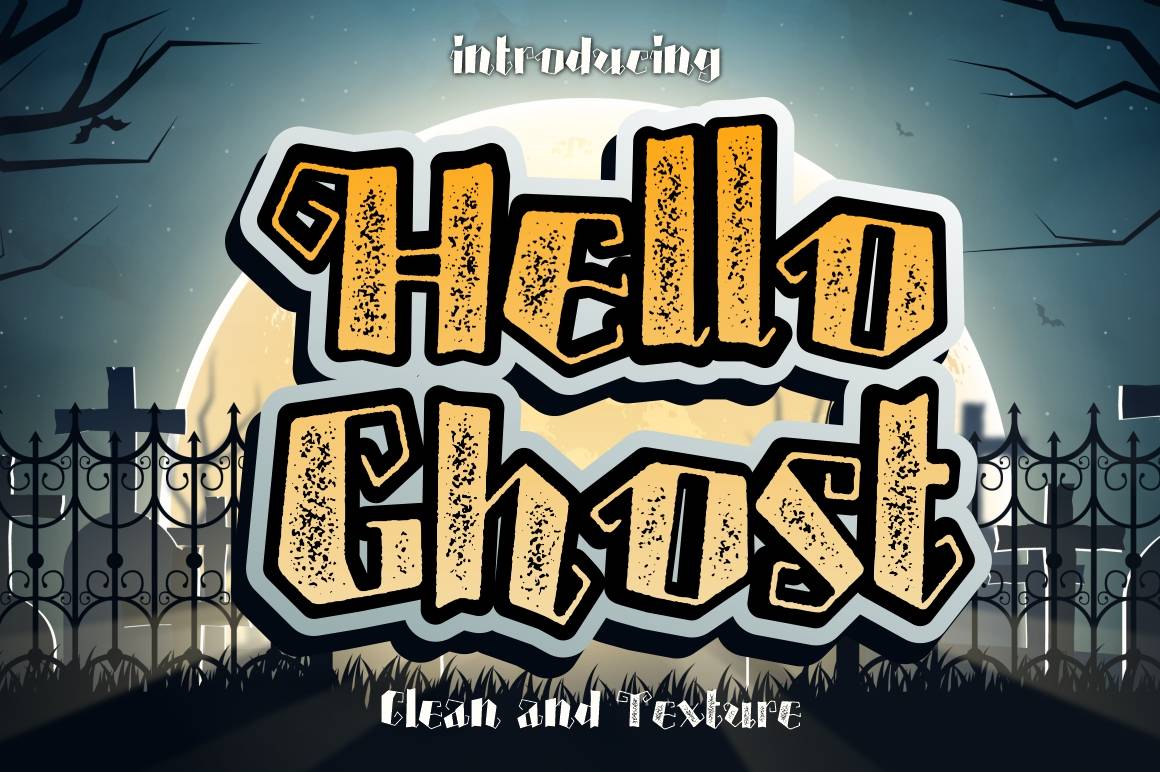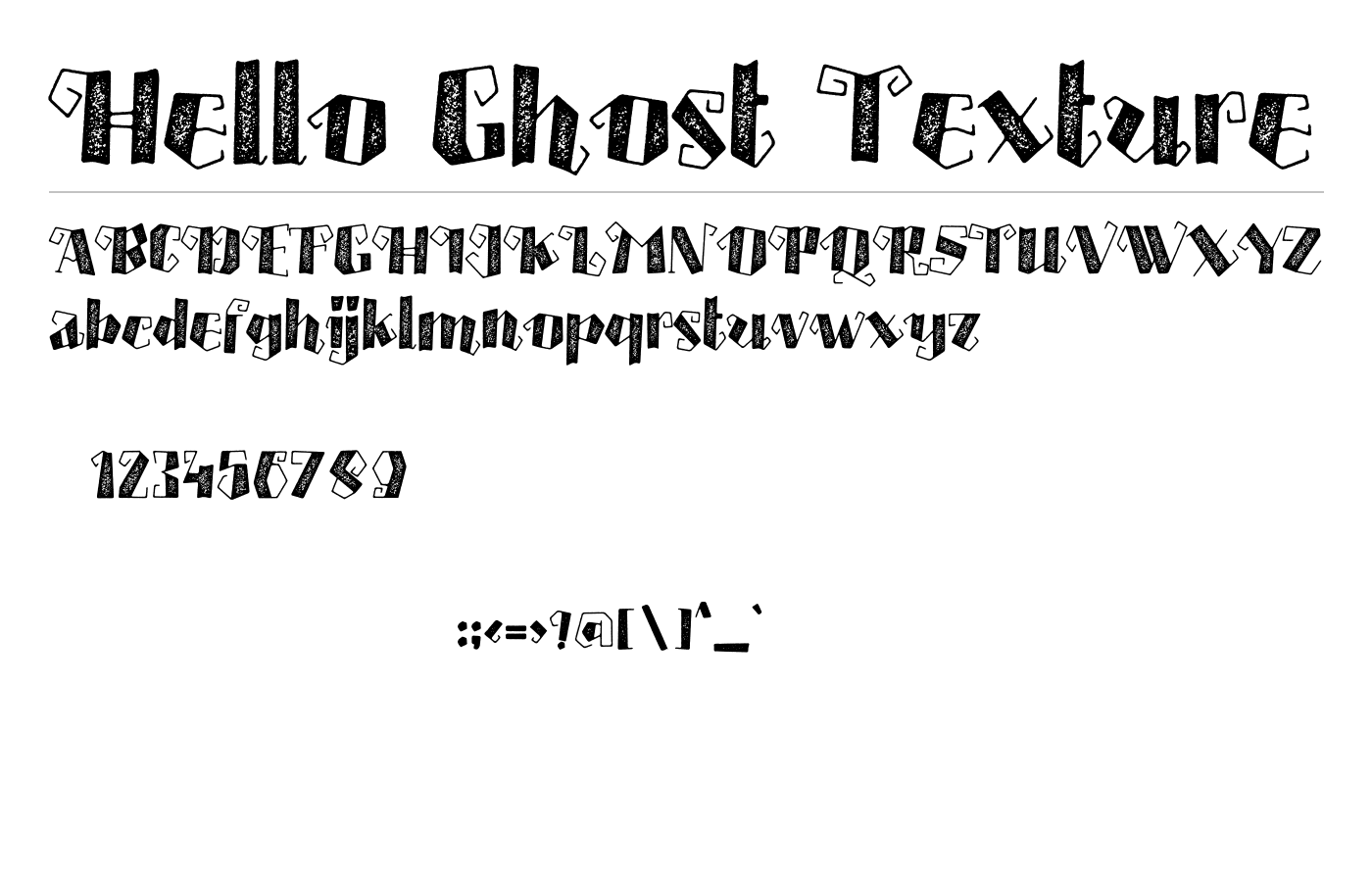
Hello Ghost is a bold, textured display font with a quirky, slightly haunted style perfect for adding a vintage yet playful mood to any design. Its sharp, irregular letterforms and rough texture give it a handcrafted feel, making it ideal for posters, Halloween-themed projects, or edgy branding that needs a distinctive, eye-catching personality. This font works best in headlines or decorative uses where a strong, dramatic impact is desired.
Hello Ghost Font